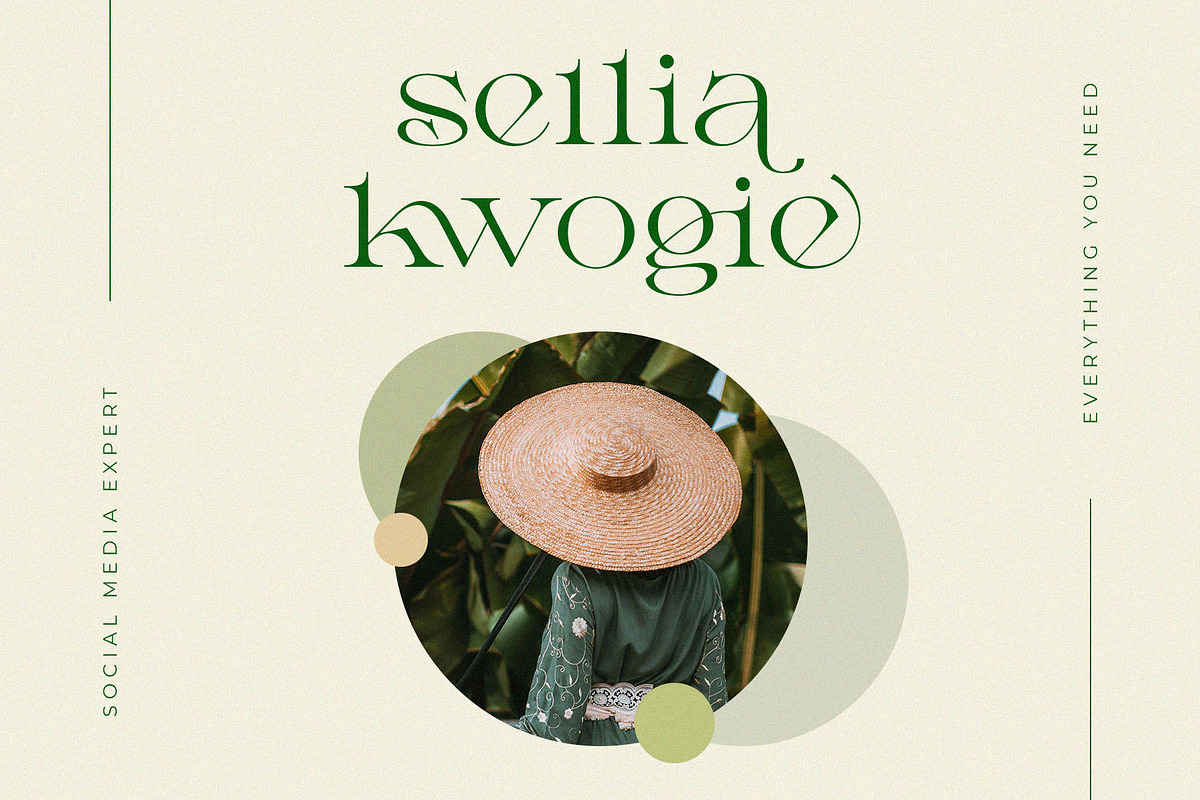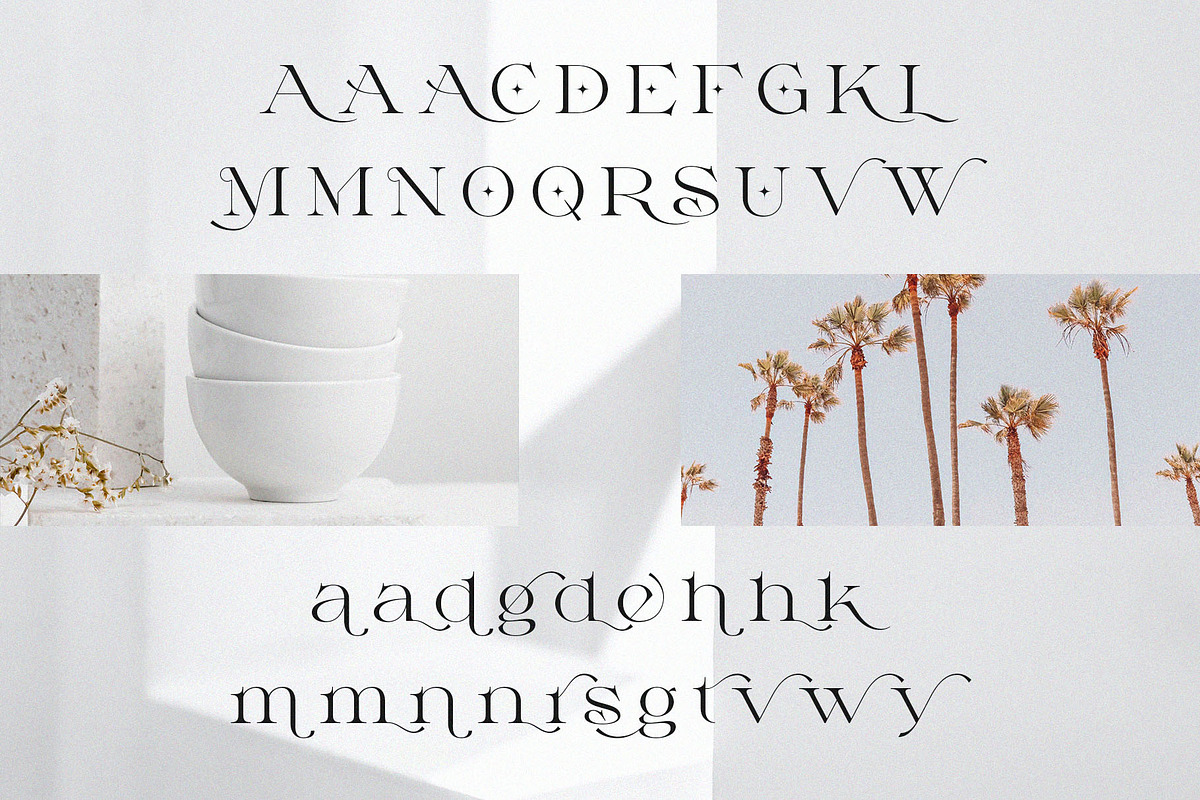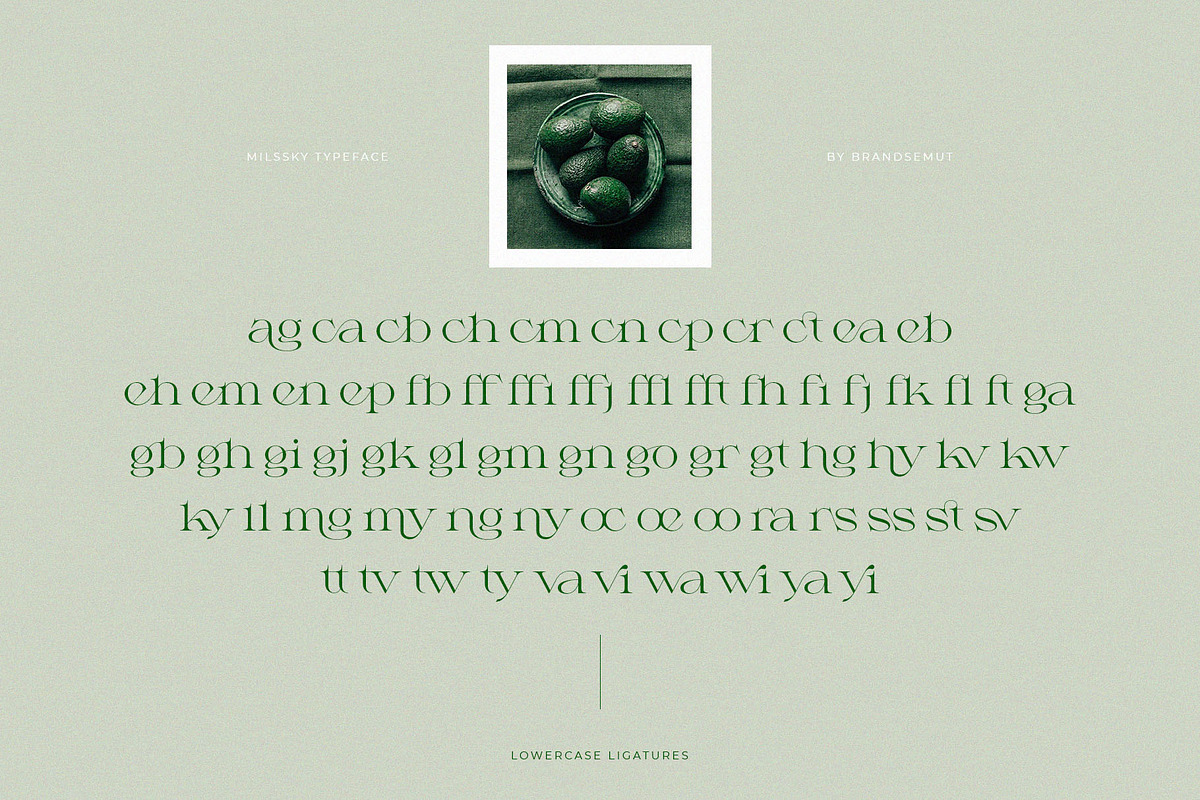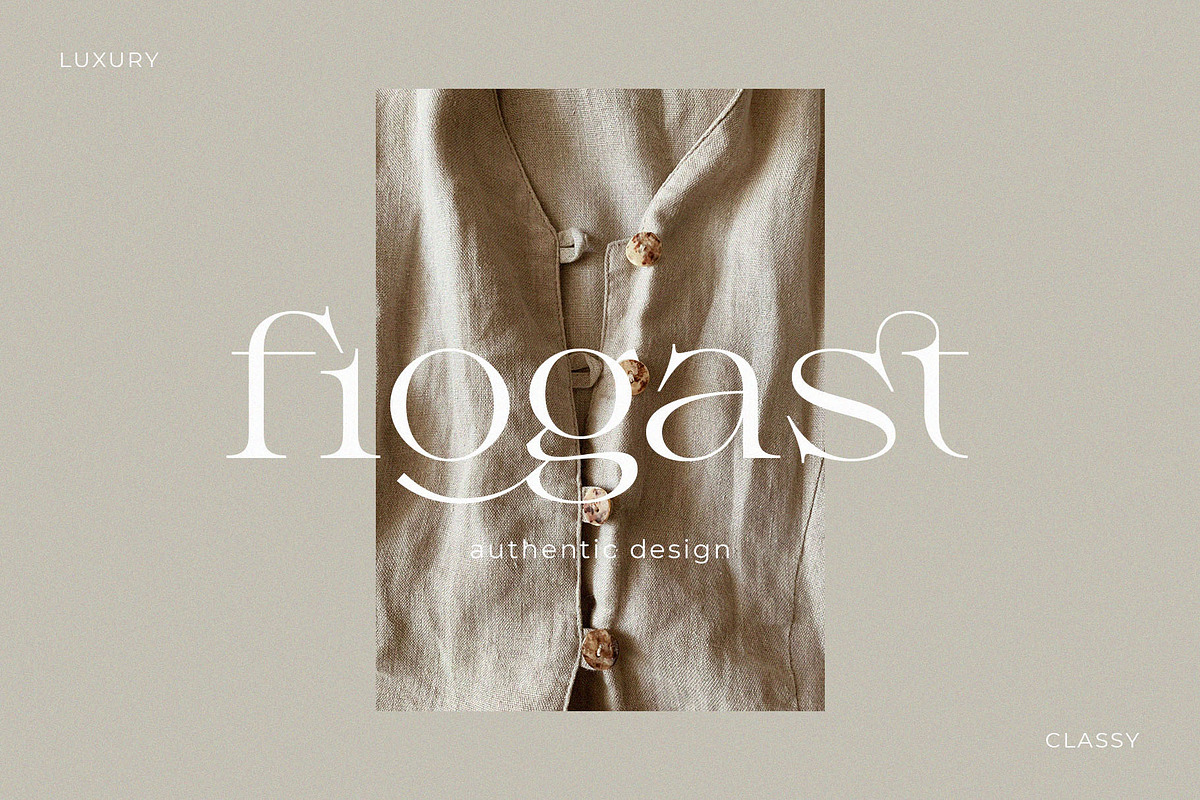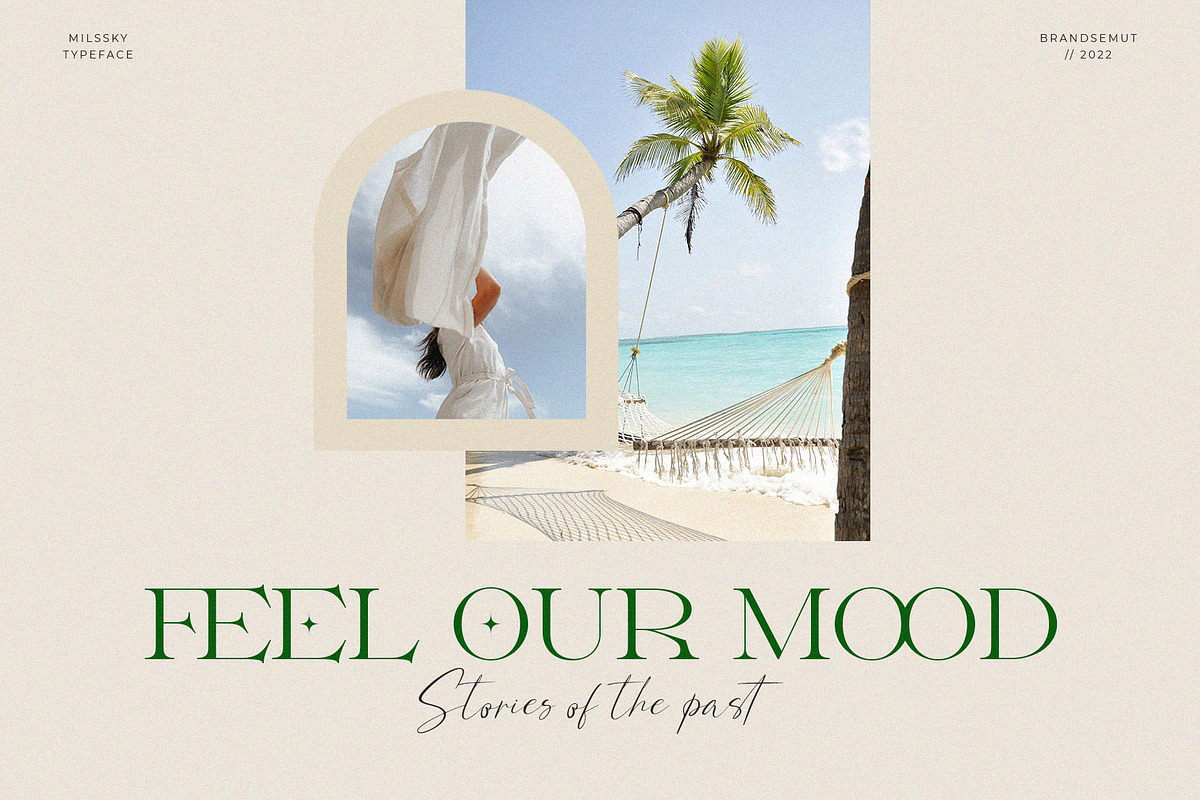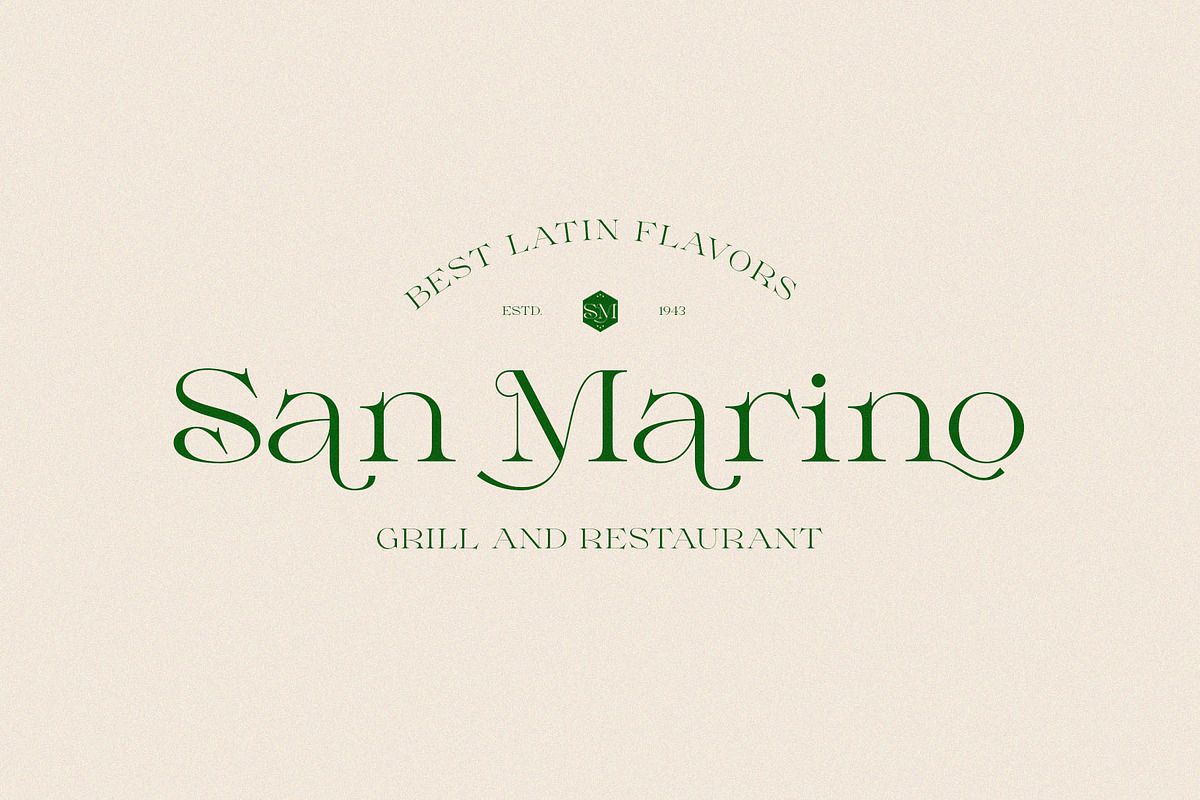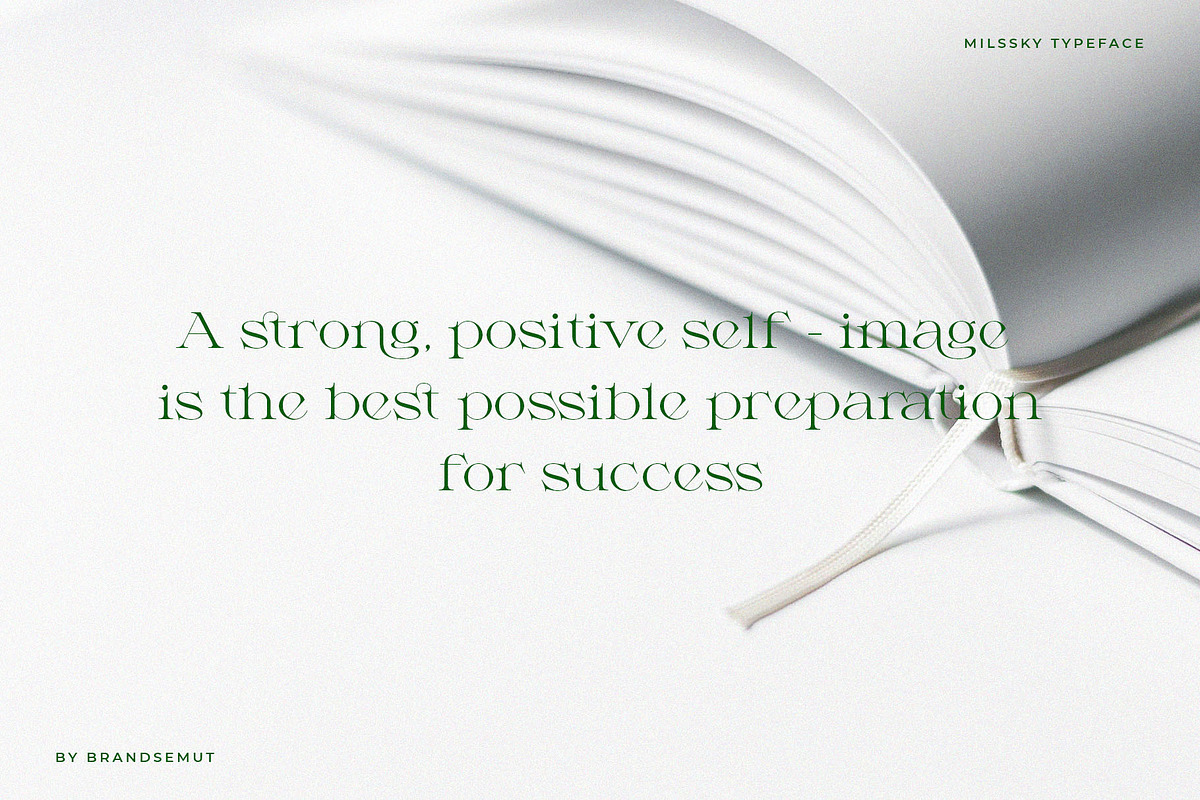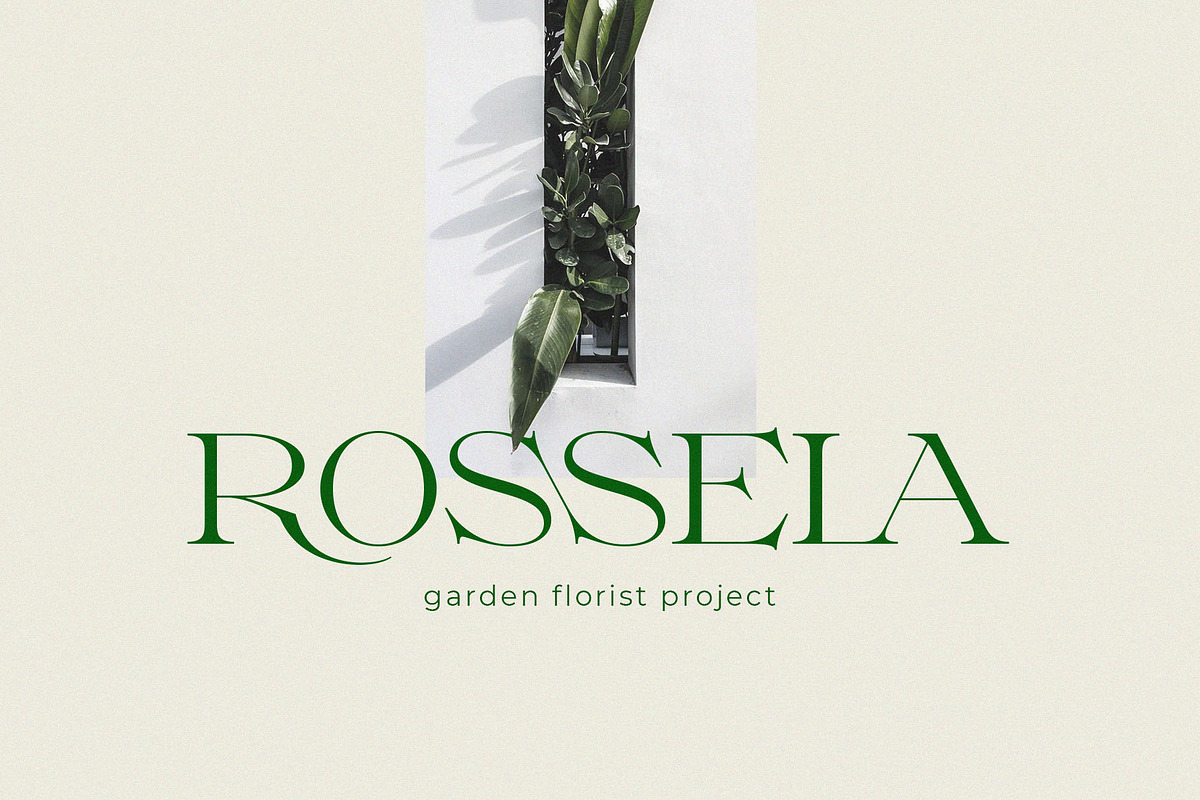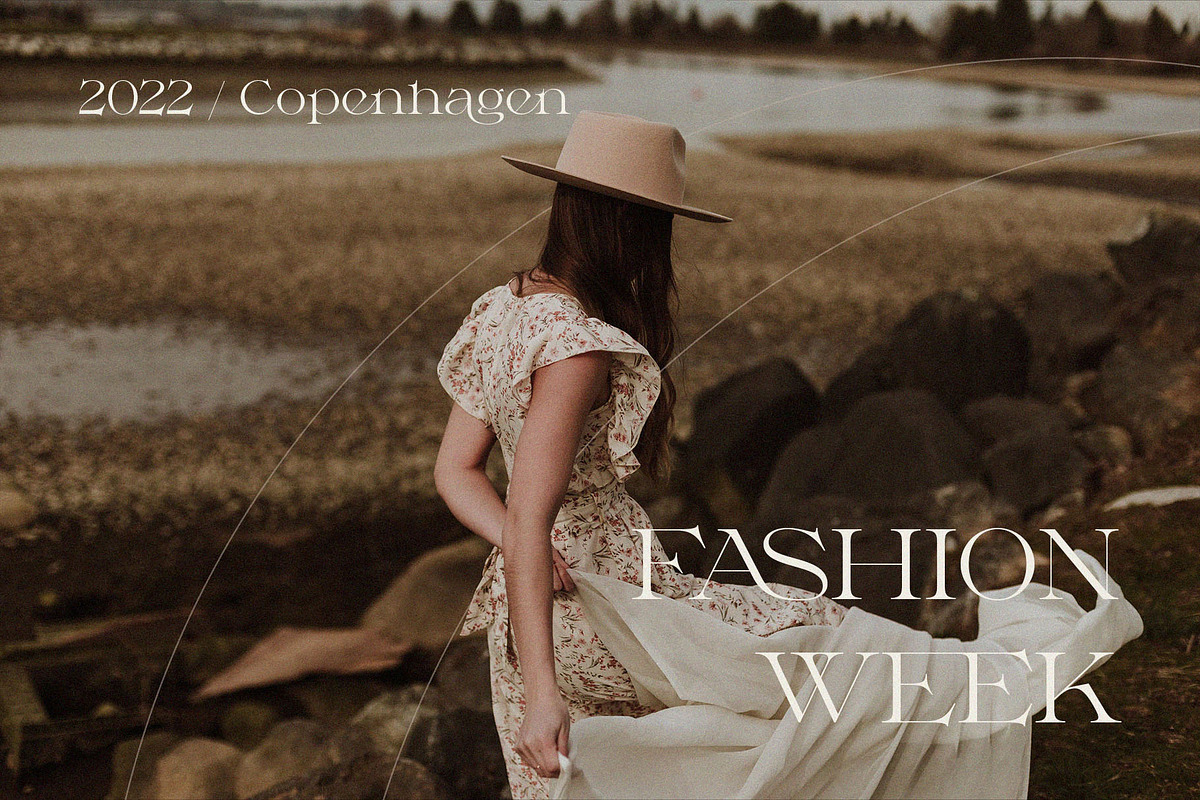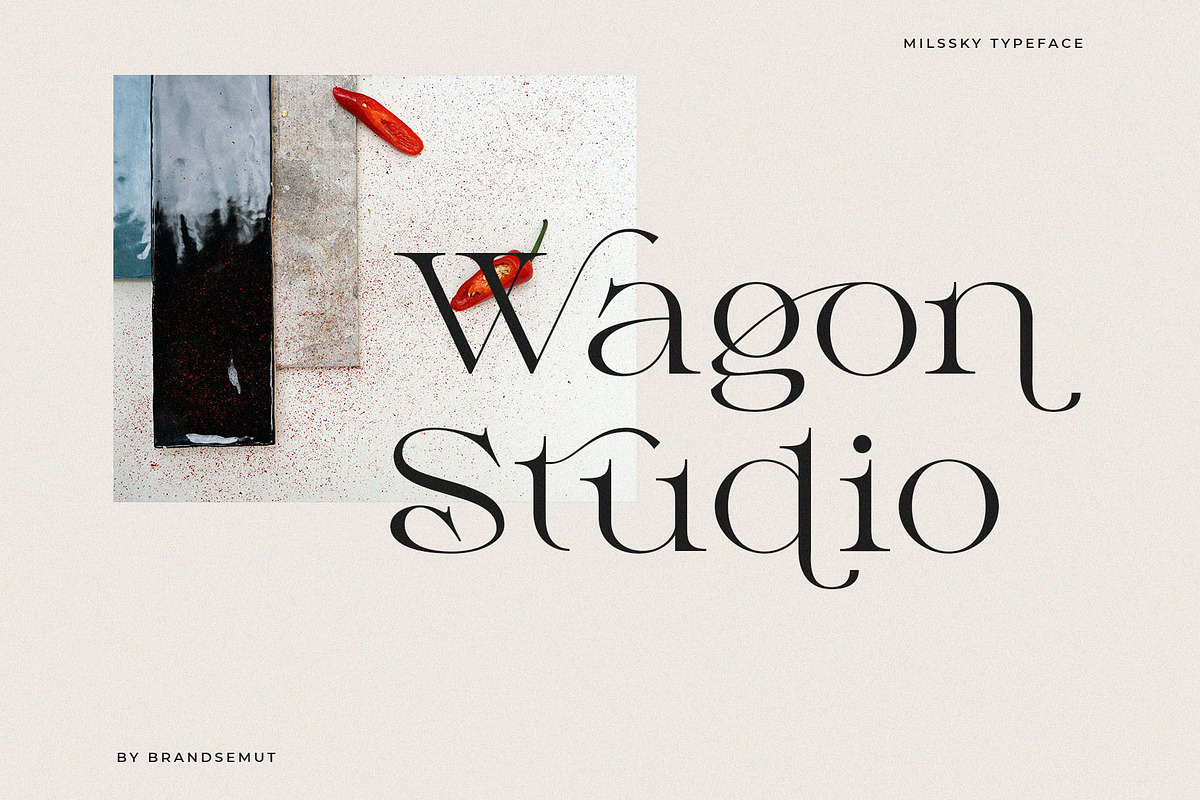
Milssky || Modern & Classy Ligature
Introducing Milssky – a brand new serif with tons of ligatures and stylistic alternates. Milssky is a modern and classy typeface, best used as a display for headings, logos, branding, magazines, product packaging and invitations. Milssky come with clean lines and smooth curves give any project an extra touch of class.
Milssky Features :
- Multilanguage